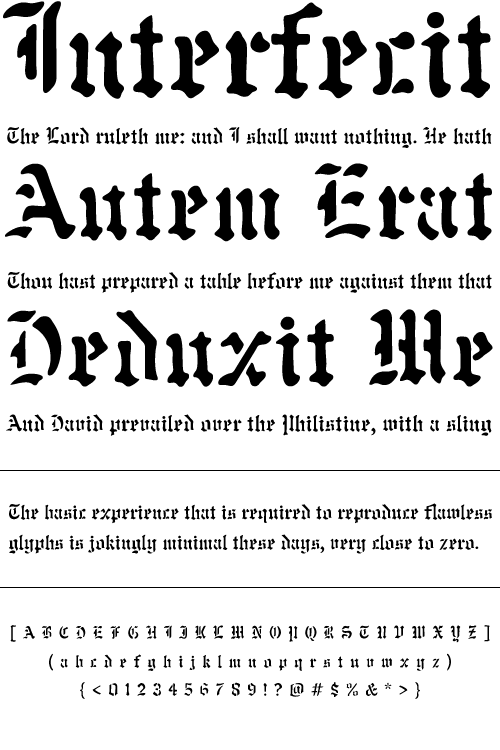
Wolfsburg
Wolfsburg is a classic blackletter stencil typeface. It is reminiscent of the days before computers when the best way to reproduce letters quickly was to stencil them.